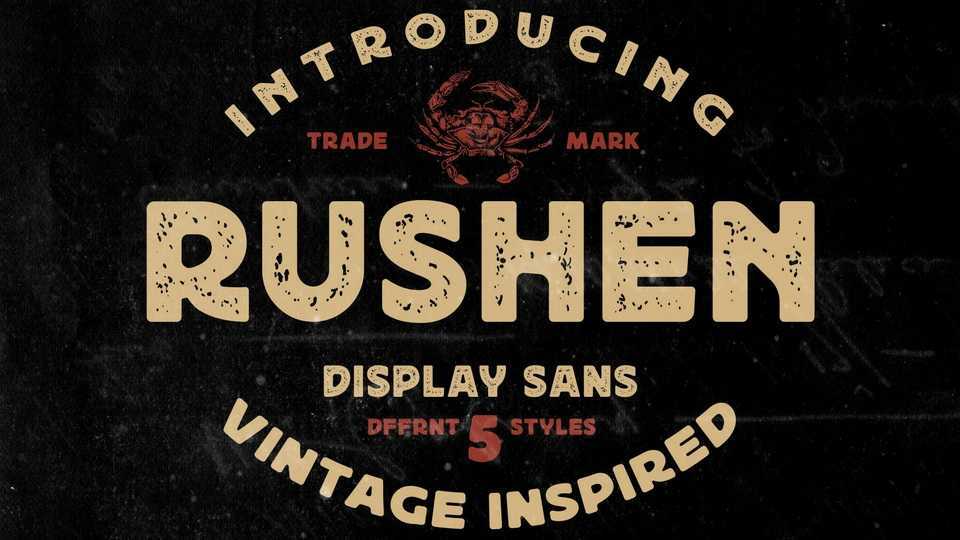
Download Rushen font, a vintage display sans serif typeface. Designed with a bold style Rushen is awesome to be used for many purposes such as headline, branding, logo,